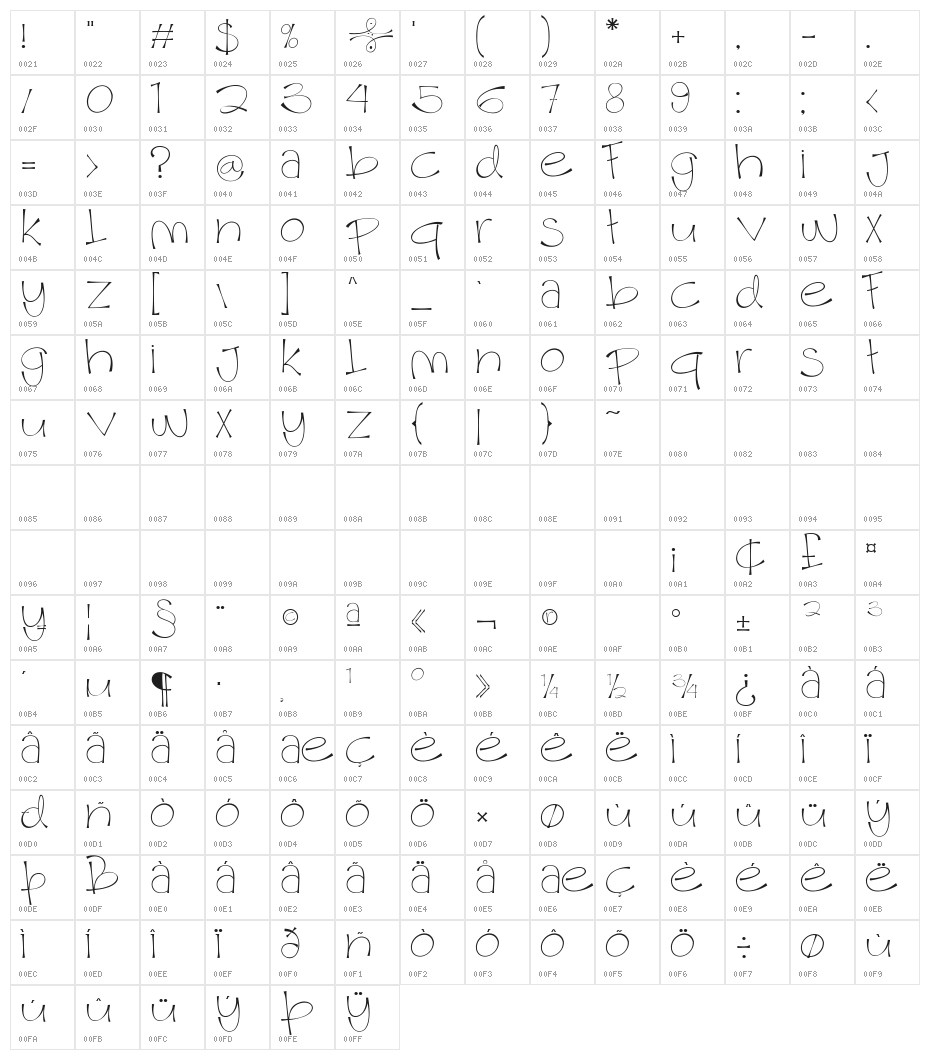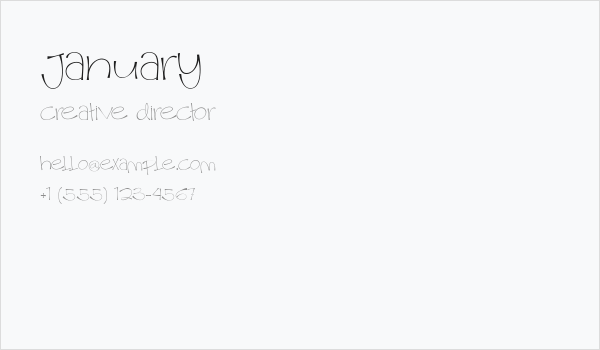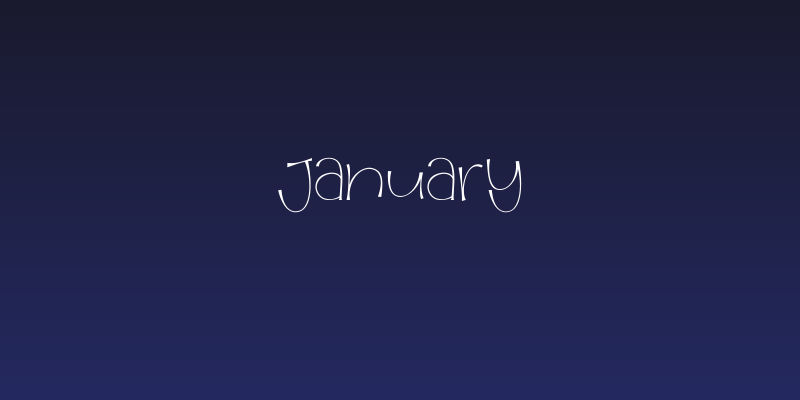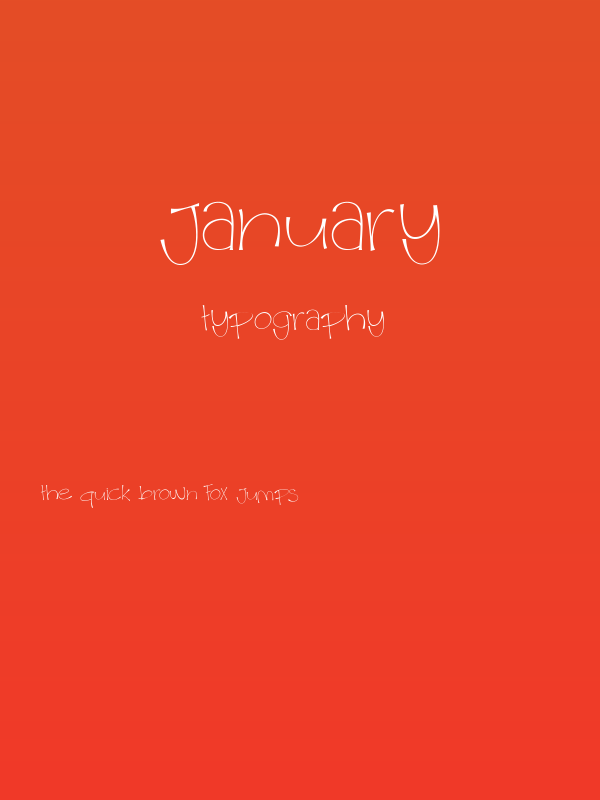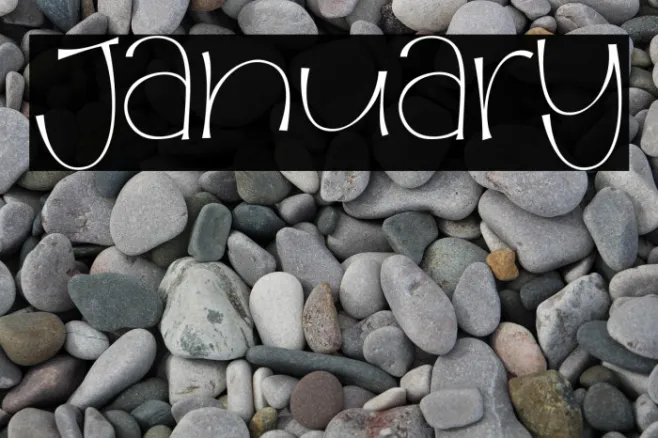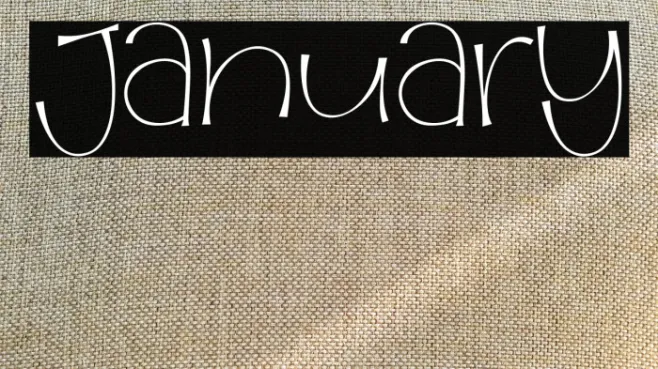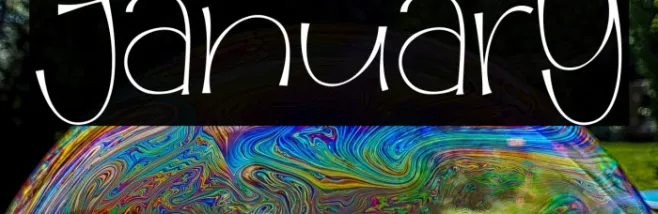
january Font
january Description
This playful and whimsical font features a handwritten style with a casual and friendly appearance. The letters are slightly slanted, giving a dynamic and lively feel. Each character has a unique and quirky design, with varying stroke thicknesses that add to its charm. The font maintains a consistent baseline, while the ascenders and descenders are elongated, enhancing its playful nature. The numerals and special characters are equally distinctive, complementing the overall style. This font is perfect for projects that require a personal touch or a fun, informal vibe.
| Proposed Projects | Ideal for greeting cards, children's books, playful branding, and casual invitations. |